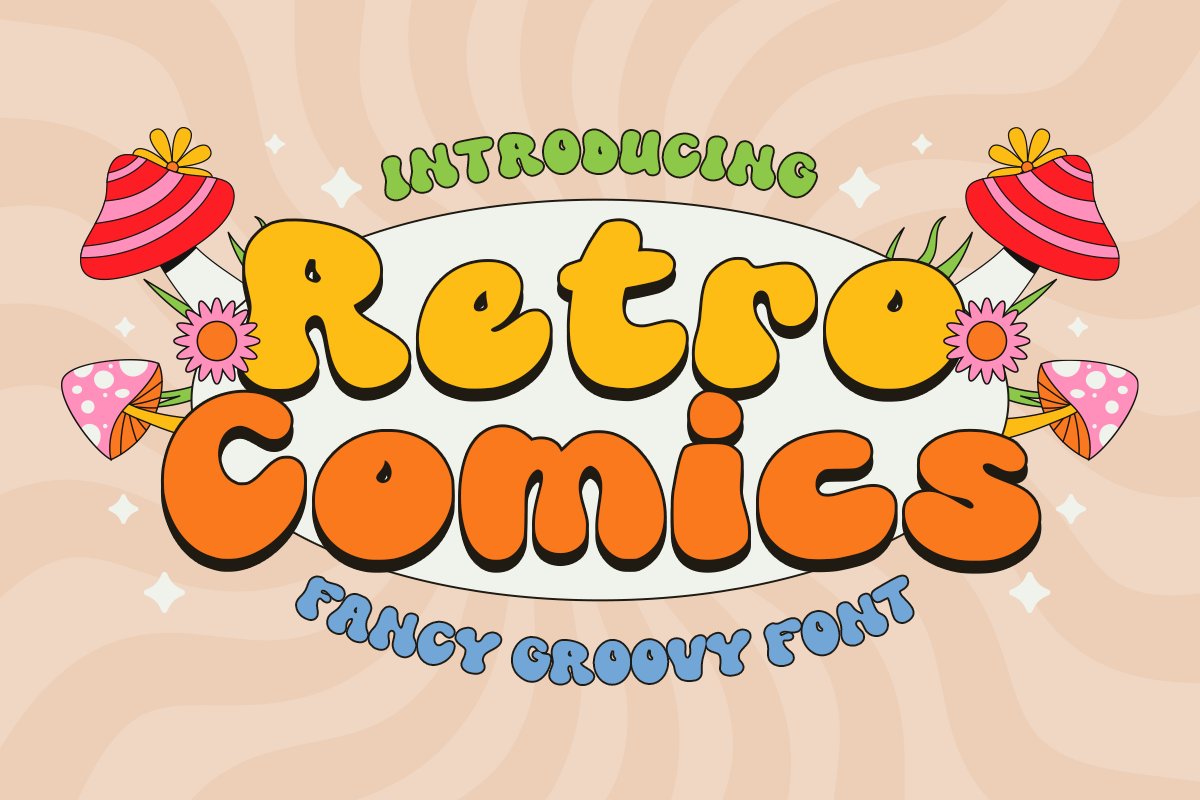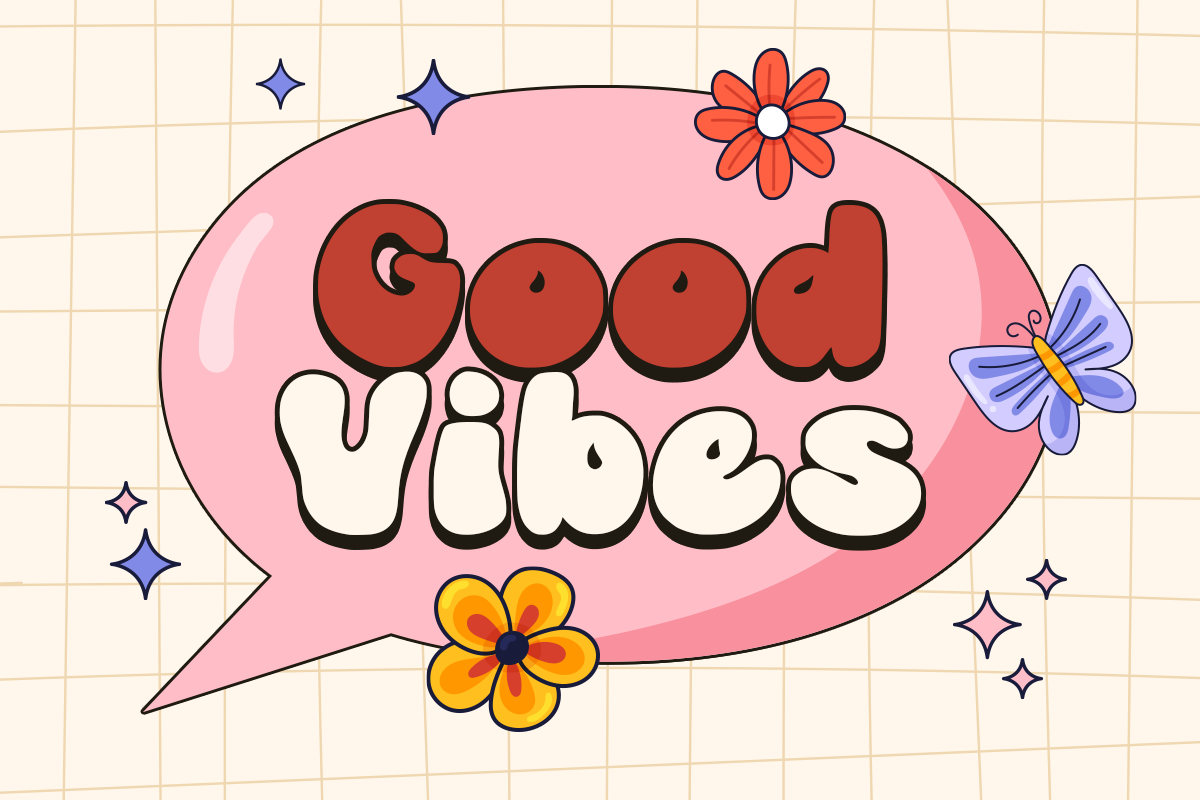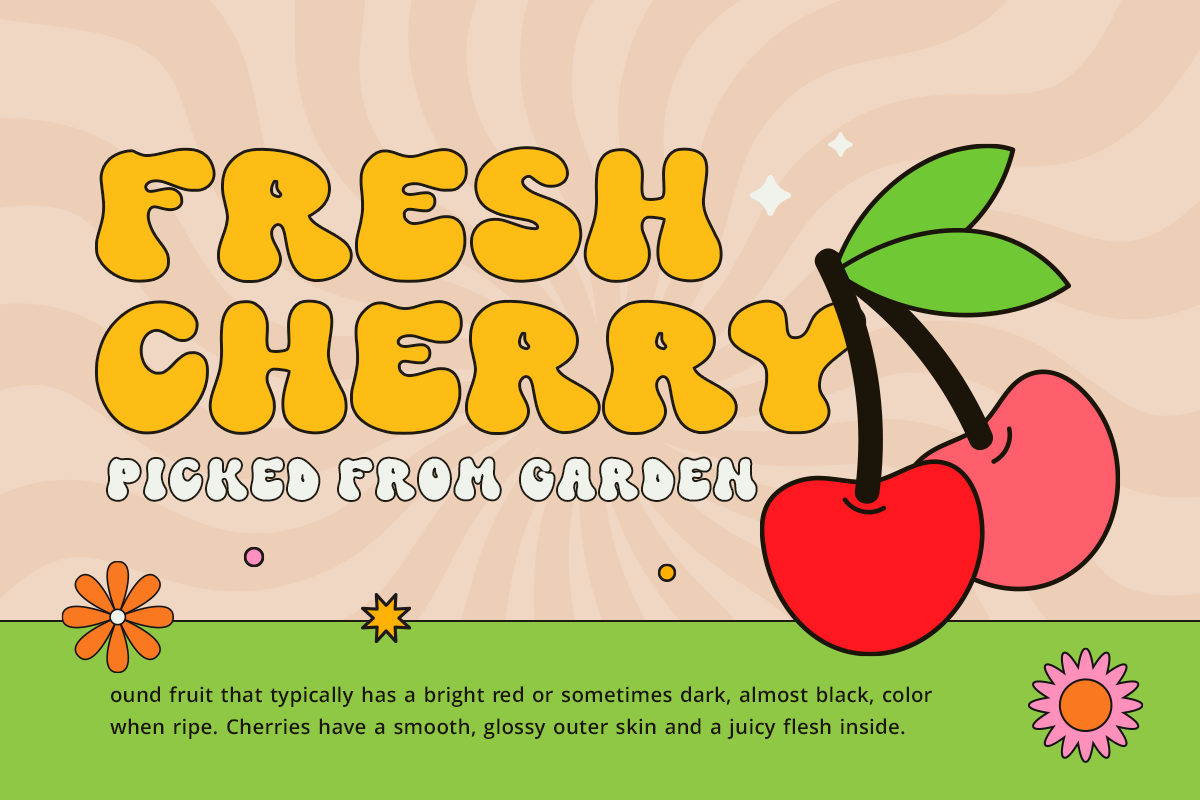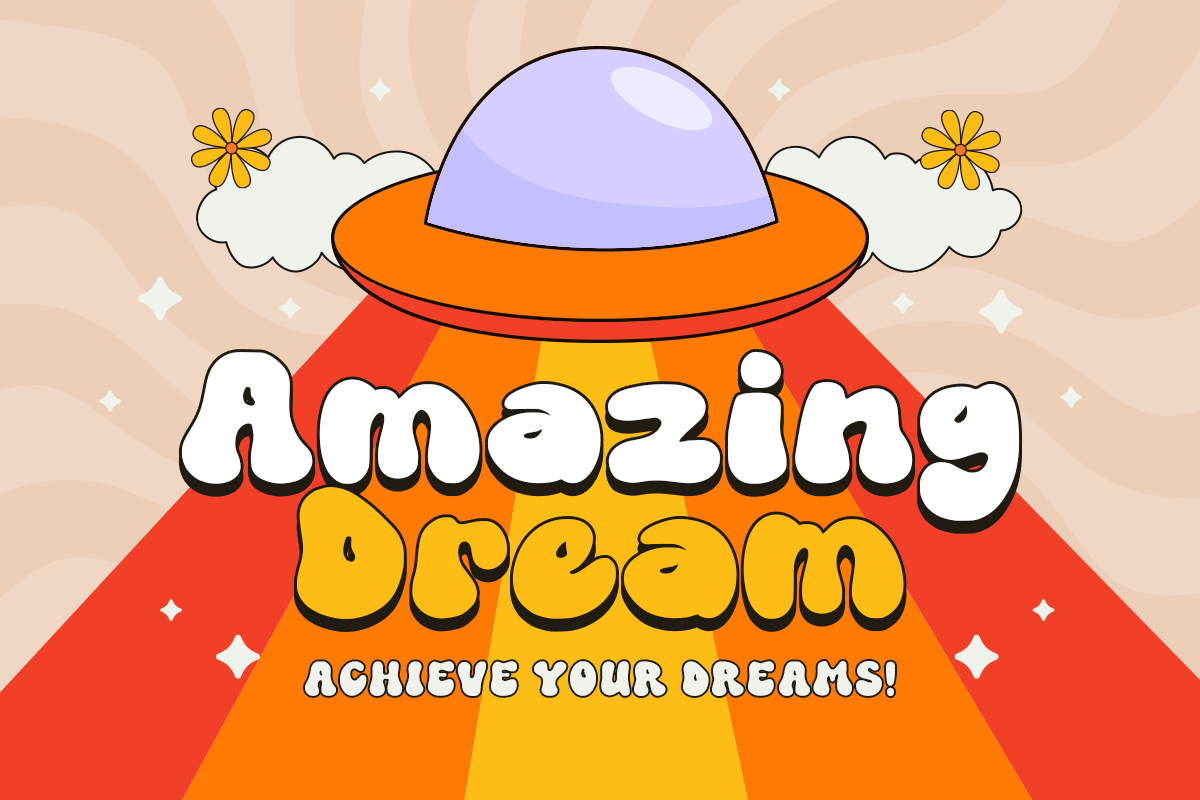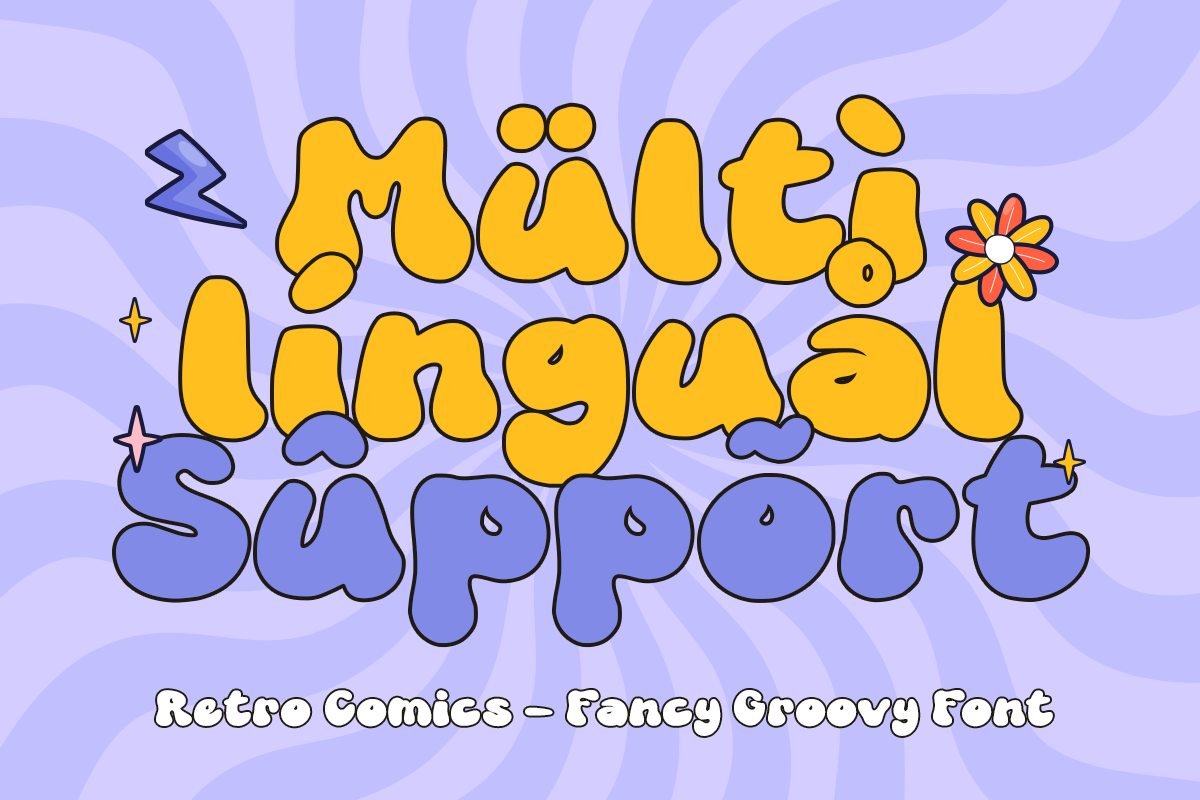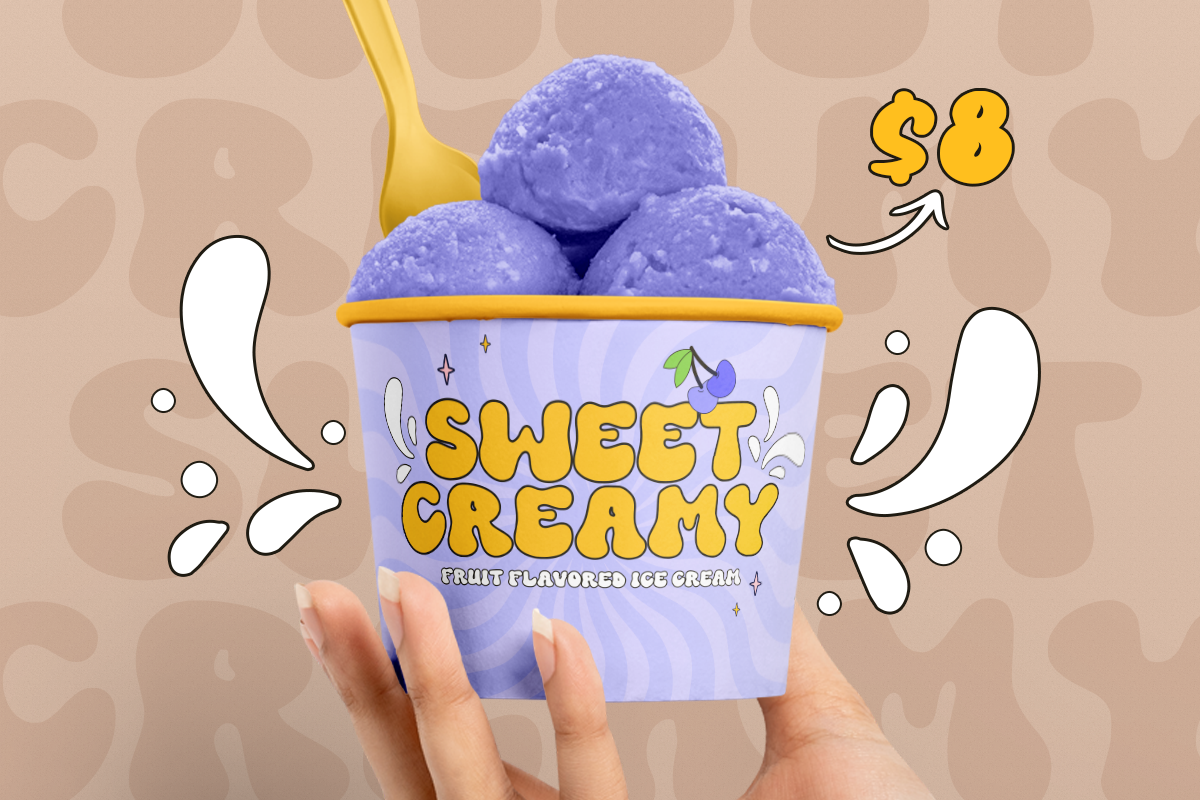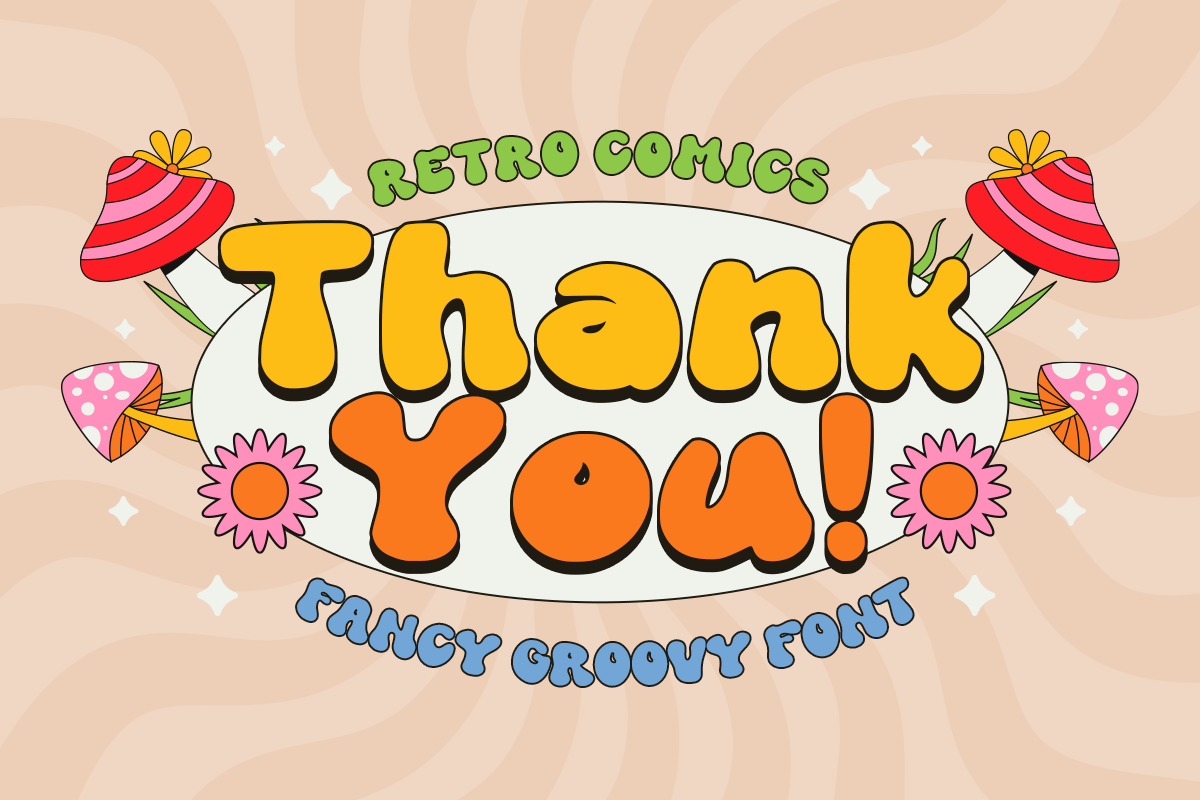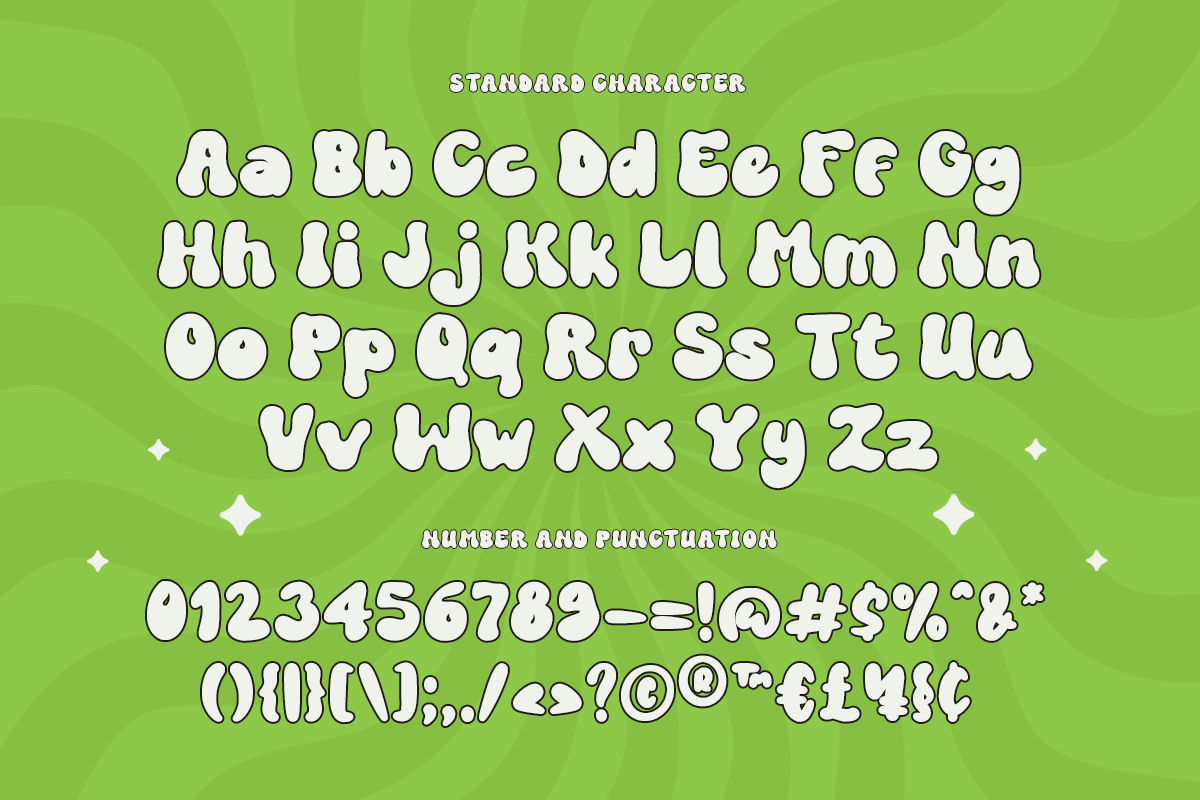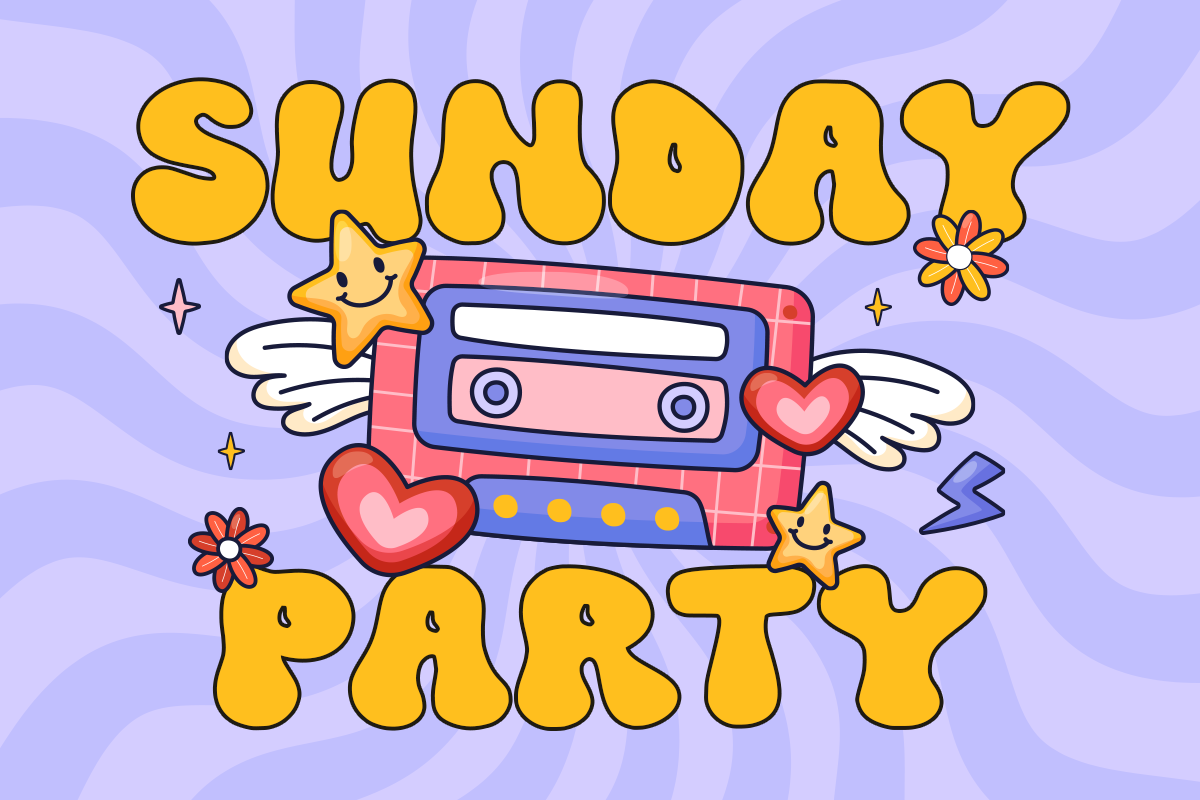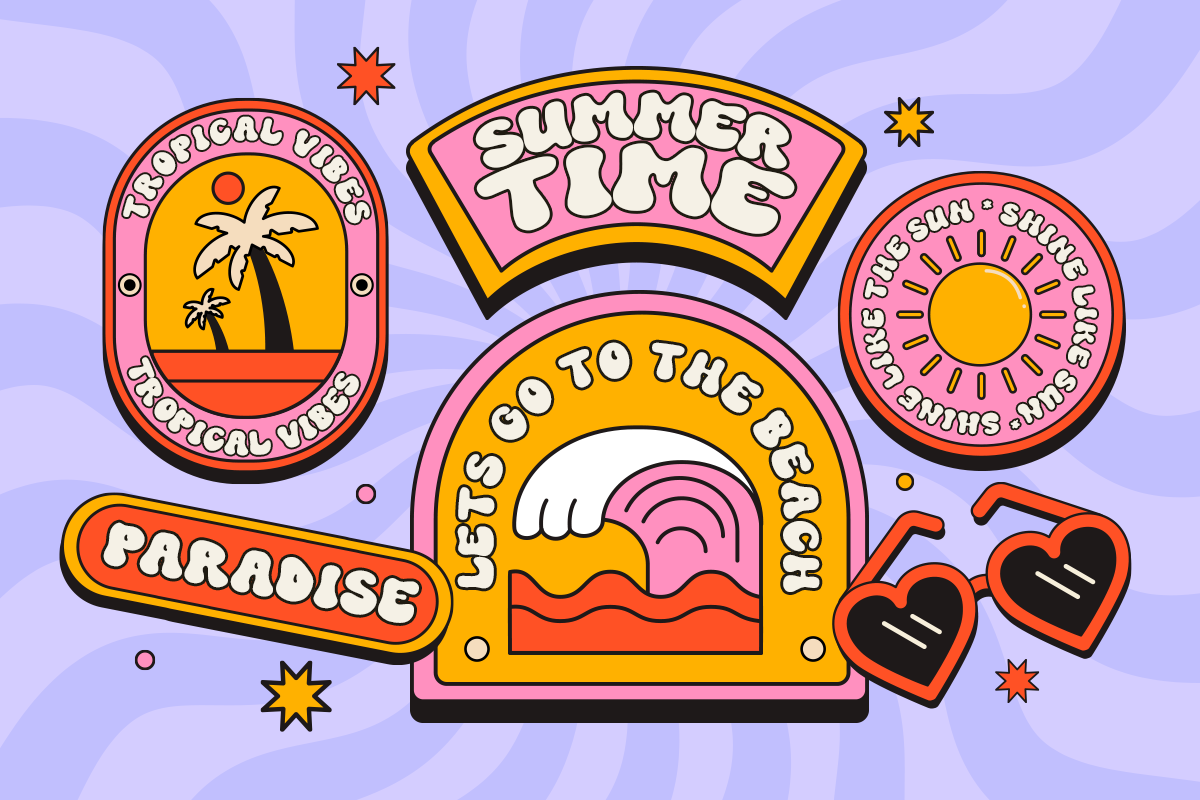
Retro Comics - Retro Font
Retro Comics is a bold and chubby retro font featuring distinctive rounded shapes and bell bottom letters, exuding a strong groovy vibe. This typeface, inspired by the wavy and psychedelic aesthetics of the past, brings a unique and playful touch to any design project. With advanced OpenType features and support for over 80 languages, Retro Comics is versatile and practical. It's perfect for creating eye-catching logotypes, retro stickers, groovy packaging designs, t-shirts, posters, headlines, and titles. Elevate your designs with the nostalgic charm and contemporary flair of Retro Comics.
- Uppercase, Lowercase, Numbers, Punctuation
- Opentype Feature
- Extended Latin
- Multilanguage